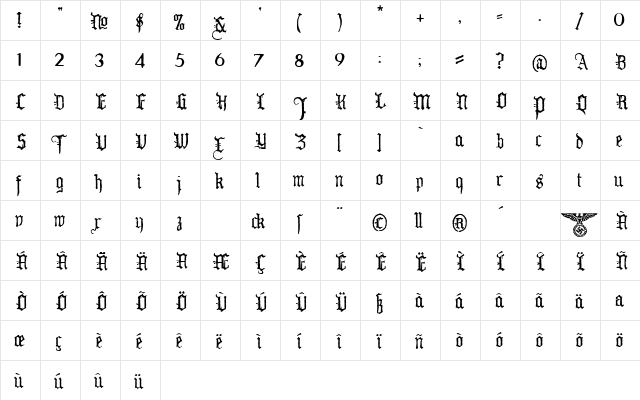
WW2 BlackltrAlt HPLHS
Design Context for WW2 BlackltrAlt Typeface
WW2 BlackltrAlt is a composed and adaptable typeface that performs quietly and consistently across a wide range of design contexts.